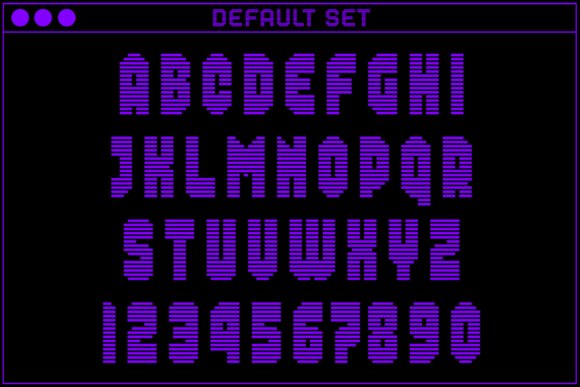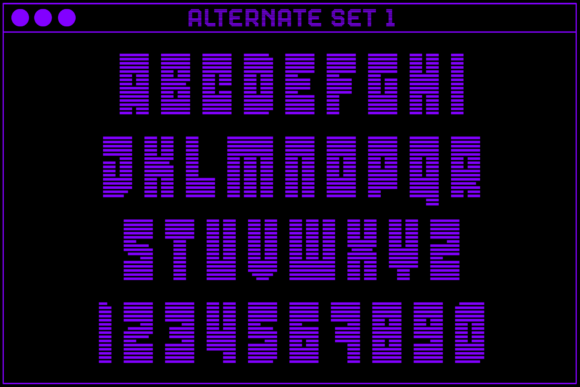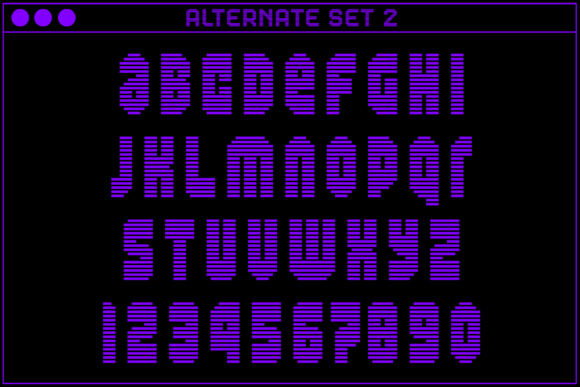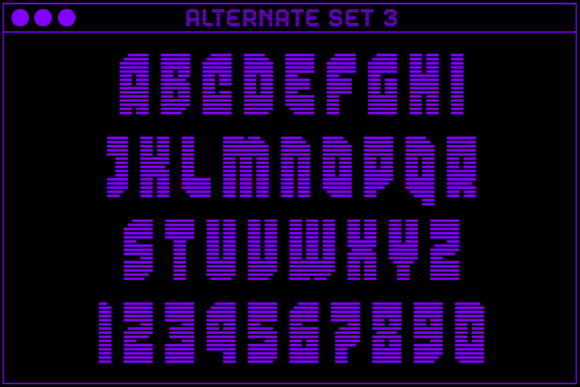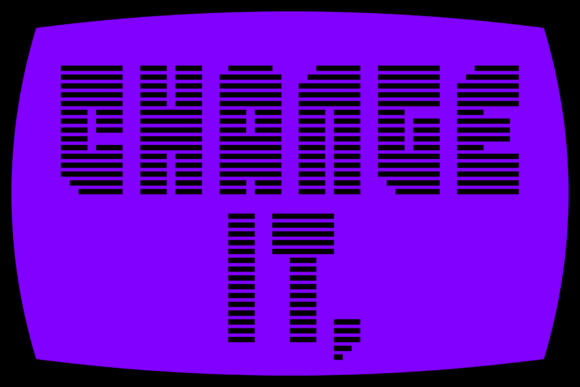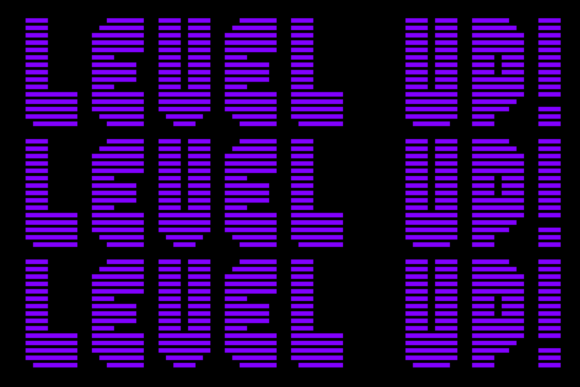
Unlocking Creativity with MultiType Rows Compact Bold Font
Have you ever been working on a design project and suddenly, that one font just clicks? It’s like a spark of inspiration that sets your creative juices flowing. For designers, finding the perfect font can be a game-changer. It’s what elevates a good design to a great one.
That’s where MultiType Rows Compact Bold Font comes in – a unique, pixelated display font that adds a touch of edginess to any design. With its cool, distorted shapes and bold style, it’s the perfect addition to any creative project. Whether you’re working on a graphic design, a logo, or even a digital art piece, MultiType Rows Compact Bold Font is sure to bring a high-quality, professional finish to your work.
Key Features of MultiType Rows Compact Bold Font
- High-quality font with a compact and bold design, perfect for creative projects.
- Unique MultiType Rows design allows for versatile use in different contexts, from headings to body text.
- Designed to be highly legible at various resolutions, including 72 dpi and 300 dpi.
Honest Review: MultiType Rows Compact Bold Font
I recently had the chance to work with the MultiType Rows Compact Bold Font, and I must say it’s been a game-changer for my creative projects. ✨ The font’s high quality and unique design make it a fantastic addition to any design resource collection. I particularly appreciated the transparent background option, which gave me the flexibility to use the font in various backgrounds without any visual distractions.
Here are some of the things that worked well for me:
- Excellent legibility and readability, even at smaller font sizes
- Wide range of uses, from headings to body text
- Perfect for digital projects, such as websites and mobile apps
- May not be ideal for print projects, due to its digital origins
- Some users may find the font too bold, depending on their personal preference
Overall, I’m thoroughly impressed with the MultiType Rows Compact Bold Font. It’s a fantastic free download that has already elevated my design projects. If you’re looking for a high-quality, versatile font for your creative endeavors, I highly recommend giving it a try.
Experiment with layering different font sizes and colors to add depth and visual interest to your design. Combine the font with other design elements, such as graphics and images, to create a unique and engaging visual identity.
Common Use Cases for MultiType Rows Compact Bold Font
This font is perfect for designers working on creative projects, such as infographics, brochures, and social media graphics. It’s also ideal for designing presentations, reports, and other business materials that require a professional and modern look.